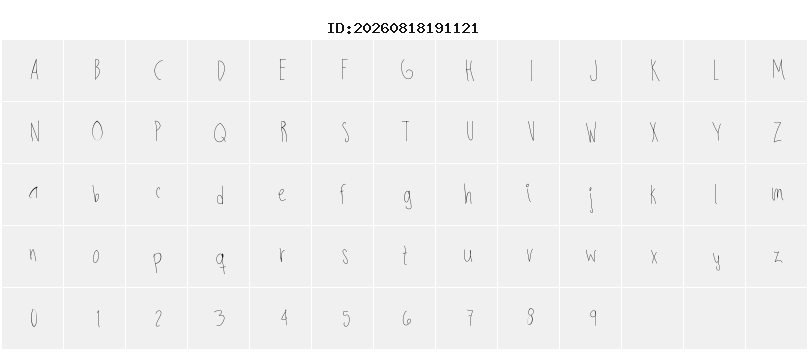
SkinnyBitch Preview
• Font Name: SkinnyBitch
• Full Font Name: SkinnyBitch
About SkinnyBitch.ttf
SkinnyBitch.ttf is a modern, elegant sans-serif font designed for ultimate readability and visual harmony. Perfect for branding, headlines, web design, and print materials.